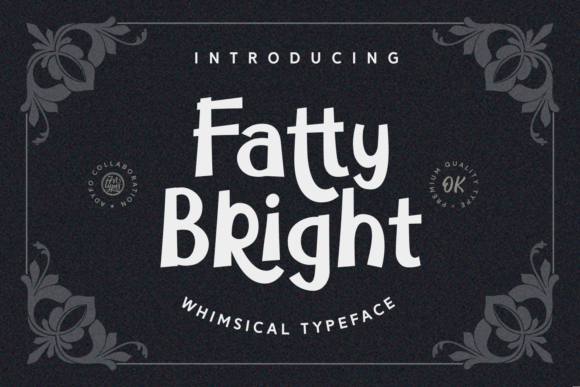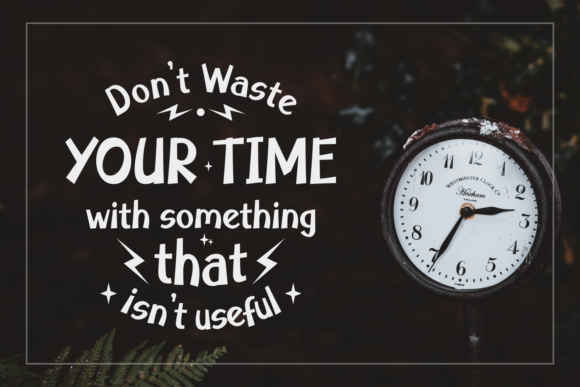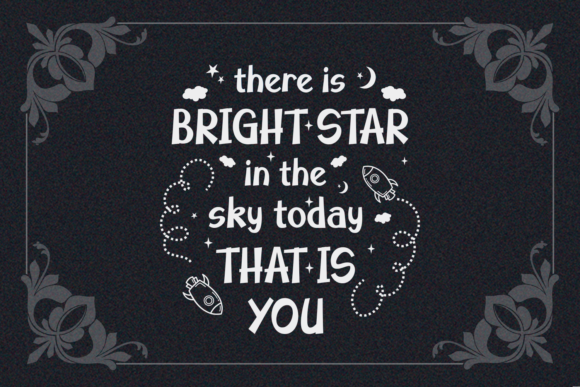
Fatty Bright Font
About Fatty Bright Font
Fatty Bright is an incredibly whimsical and charming handwritten font with a hilarious feel. Use it to add a unique spark to any design project!